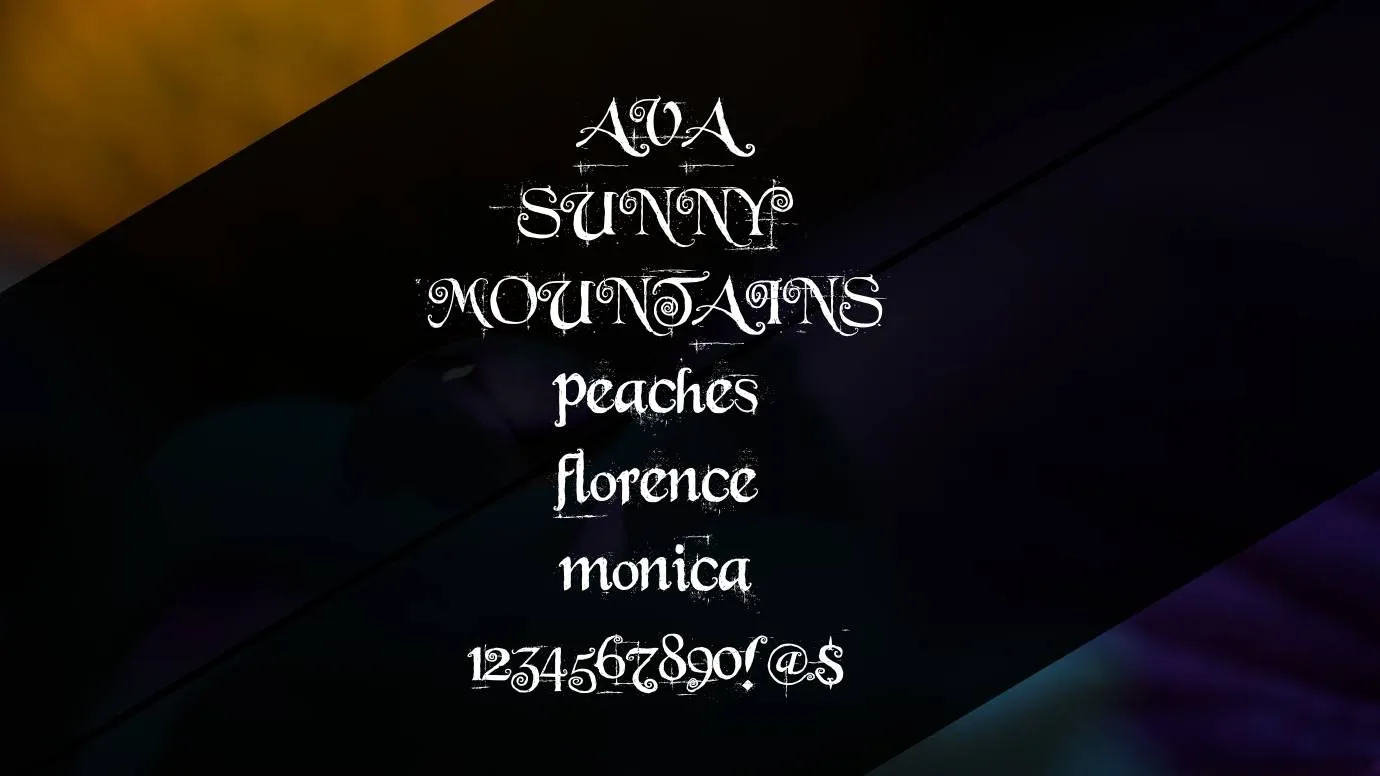
Beyond Wonderland Font is a beautiful gothic typeface with a touch of whimsy. This typeface is created by an American typeface designer. This is an interesting and stunning typeface. This typeface has a unique style.
This typeface is available in two styles Regular and Bold. It’s perfect for invitations, greeting cards, and any other project that needs a little bit of magic.
Beyond Wonderland typeface has a complete set of 655 characters including uppercase and lowercase letters, numbers, and punctuation. This typeface also contains a set of 84 glyphs. This typeface is similar to the mystery quest font.
Creator of Beyond Wonderland Font
This awesome and unique typeface is created by American typeface designer Christopher Hansen for the foundry Livin Hell in 2004.
This font style is created with a unique and consistent style. This single attractive style is a combination of multiple characteristics, including capital and small letters, digits, punctuations, symbols, special characters, glyphs, and various language support.
| Name | Beyond Wonderland Font |
| Style | Gothic |
| Designer | Christopher Hansen |
| Foundry | Livin Hell |
What font style is Beyond Wonderland texture?
Beyond Wonderland typeface is a gothic typeface. This typeface belongs to the Display family.